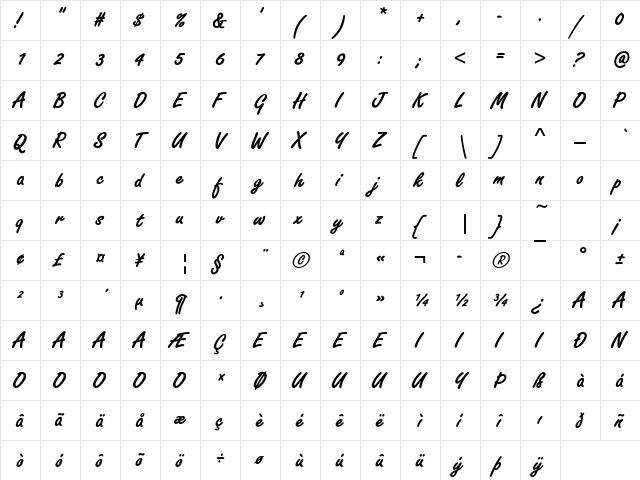
Freestyle Script D Bold Font Preview
Design Context for Freestyle Script D Typeface
Freestyle Script D flows with the natural rhythm of handwritten lettering, making it ideal for designs that call for warmth and personal expression. Its bold stroke weight gives it real presence on the page.
Font Pairing: Combine Freestyle Script D with a simple geometric sans for maximum contrast — the tension between flowing curves and clean structure is a classic typographic pairing.
Pro Tip: Pair Freestyle Script D with a clean sans-serif for supporting text. The contrast between fluid script and geometric structure creates an elegant typographic hierarchy.